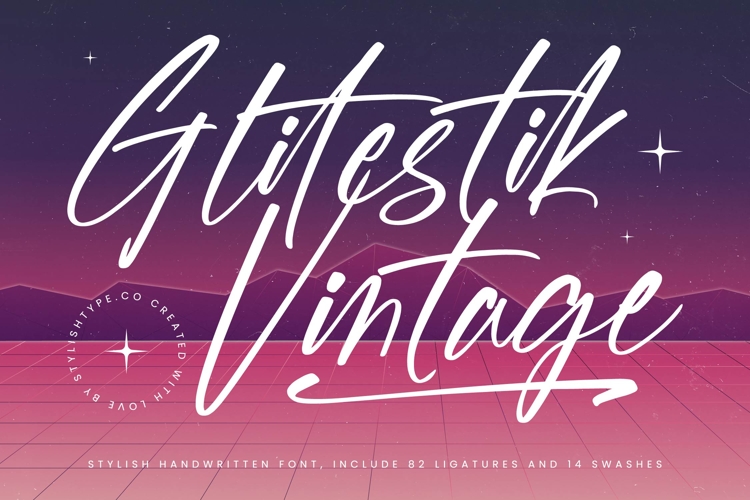
Glitestik Vintage - Stylish Handwritten Font
Glitestik Vintage - Stylish Handwritten Font is a breathtaking typeface characterized by its dramatic baseline shifts and expressive, flowing connections. This high-contrast script captures the essence of mid-century nostalgia fused with modern design flair, delivering an unforgettable visual statement. Its sharp yet elegant strokes ensure exceptional legibility, even when heavily styled, making it an immediate focal point in any composition.